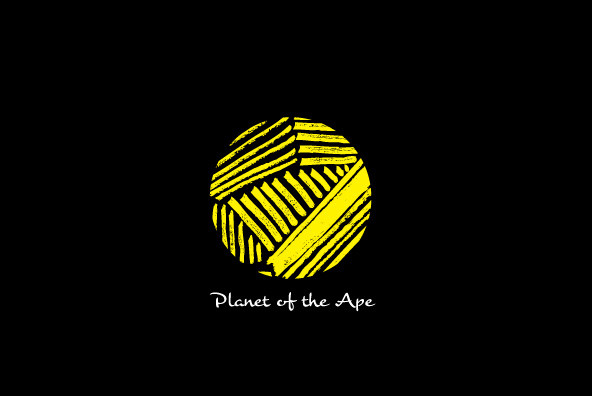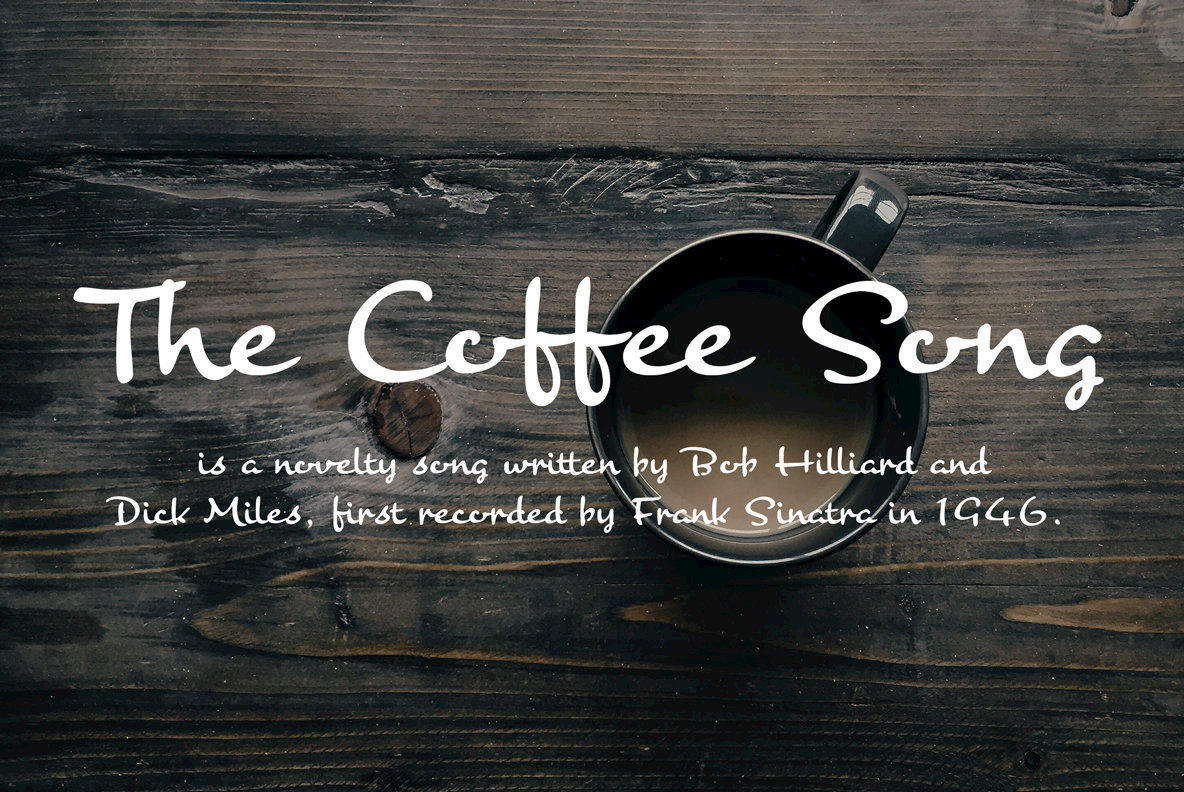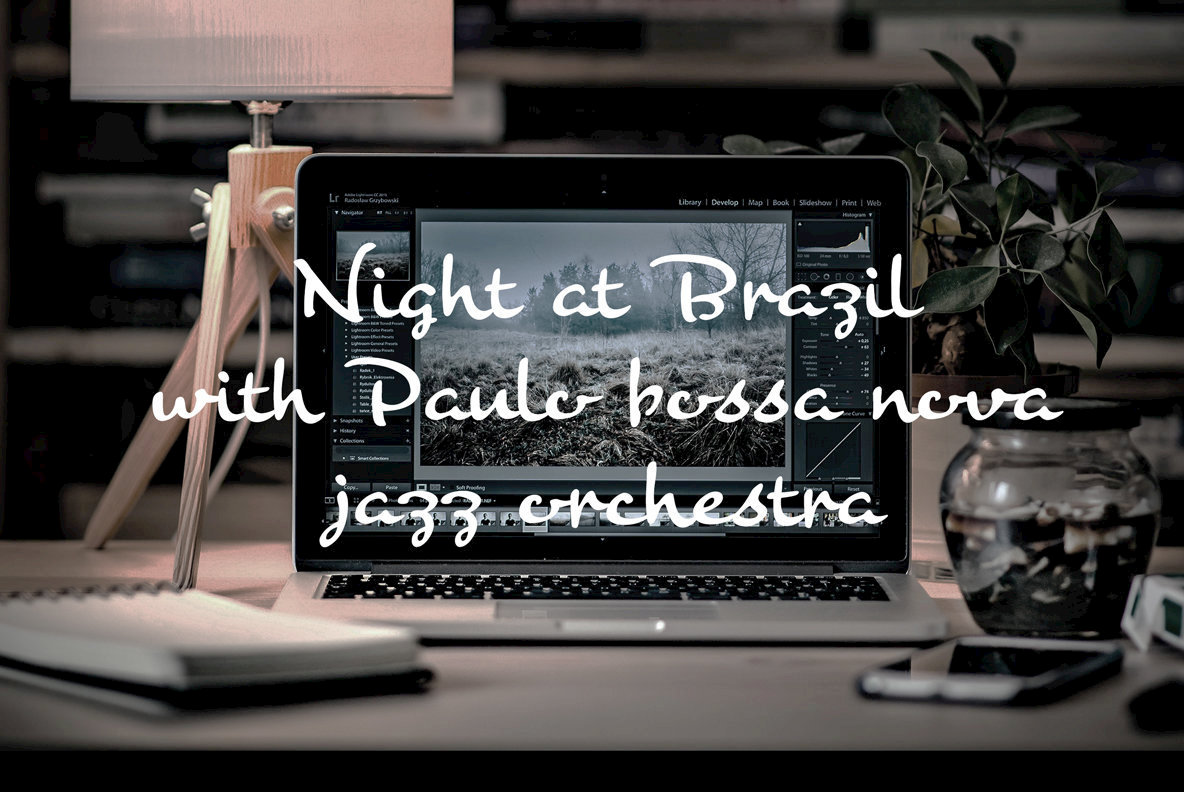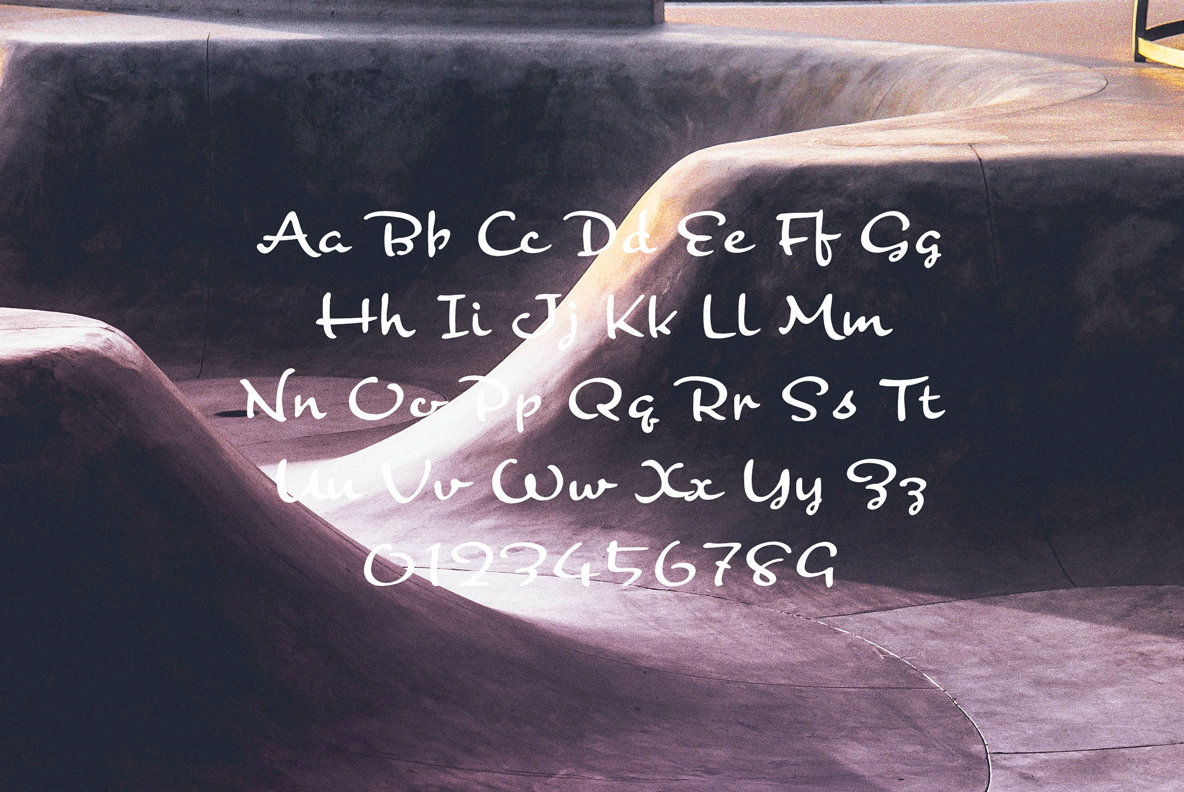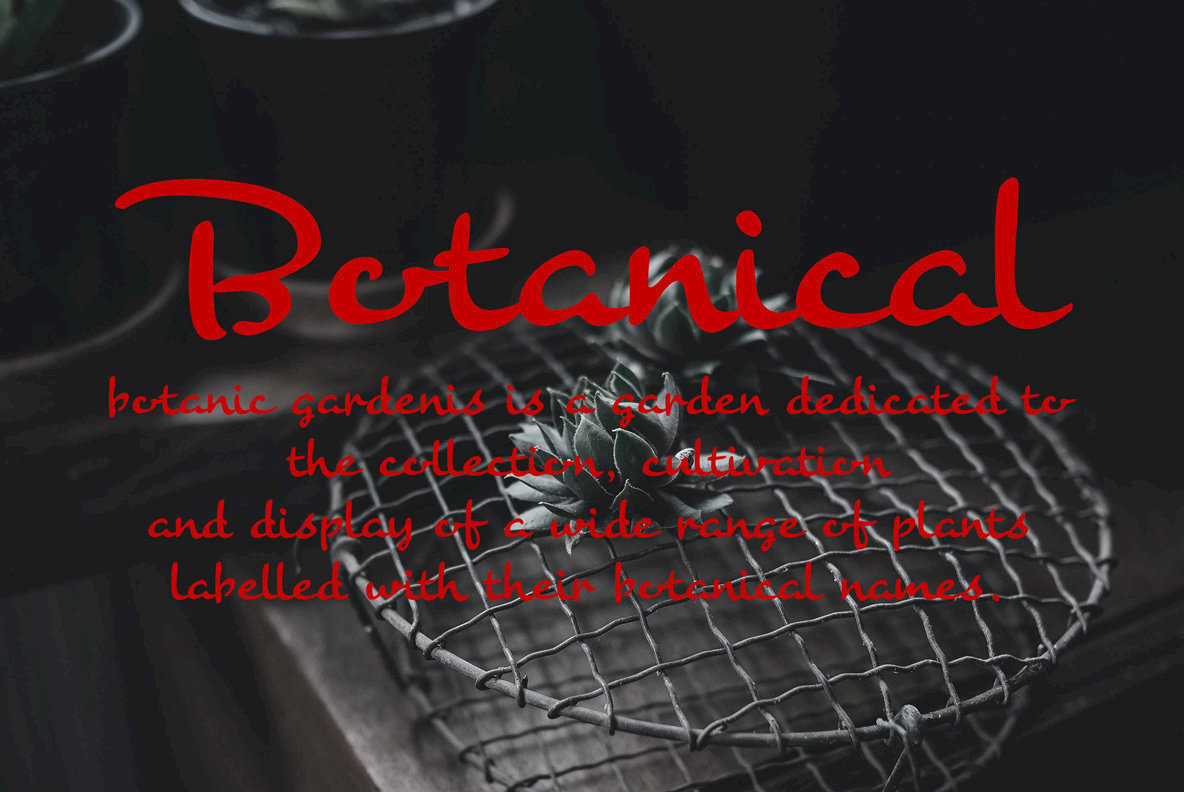
This font is a modern urban script. Very impressive because of its heavy and rounded shape. Upright stems and wide width of their shape gives easy and slow impression.